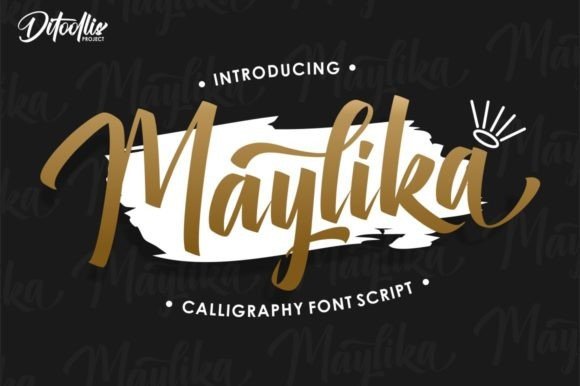
Maylika Script Font Free
Maylika Script Font is a fabulously fun yet elegant script font with tons of energy, allowing you to create beautiful hand-made typography in an instant. With swash in the beginning and ending, Maylika is guaranteed to make your text stand out.
Made from font designer named Ditoollis Project. It has beautiful and well balanced characters and as a result, it matches a wide pool of designs. Add it to your most creative ideas and notice how it makes them come alive!